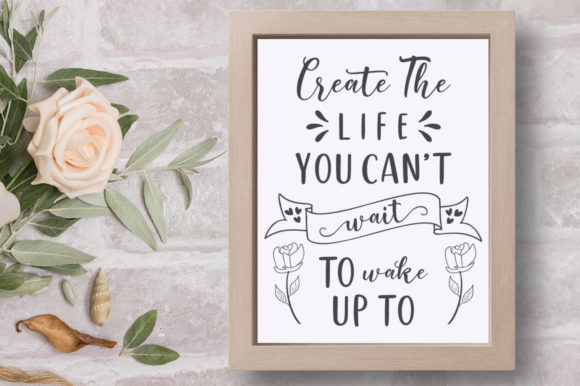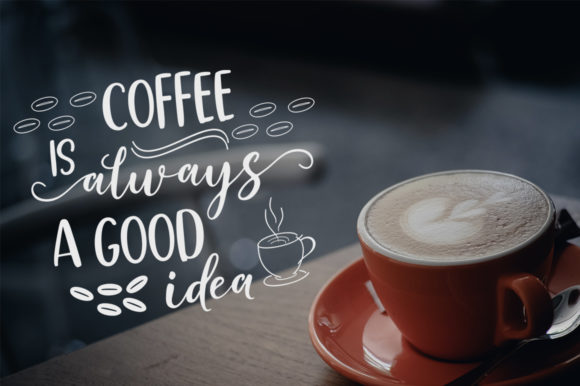
Good Selection Duo Font
db-ku.com - Script & Handwritten -- Good Selection is a fun and beautiful font duo. It will effortlessly elevate any design project!